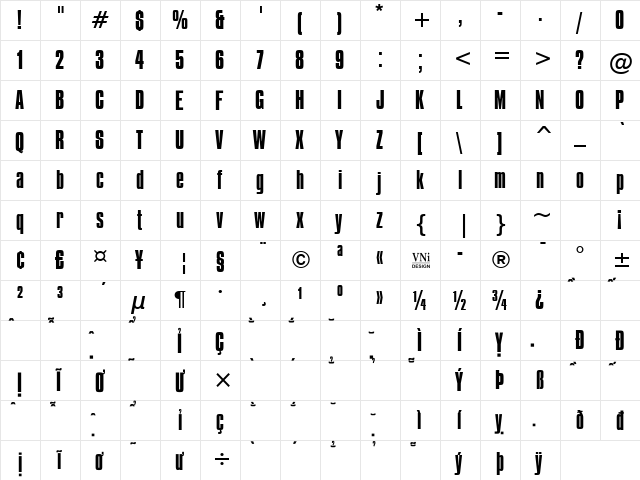
HP-Compac Regular Font Preview
HP-Compac Regular
Design Context for HP-Compac Typeface
HP-Compac offers clean, dependable letterforms without strong stylistic allegiance, making it a practical choice for designers who need flexibility.